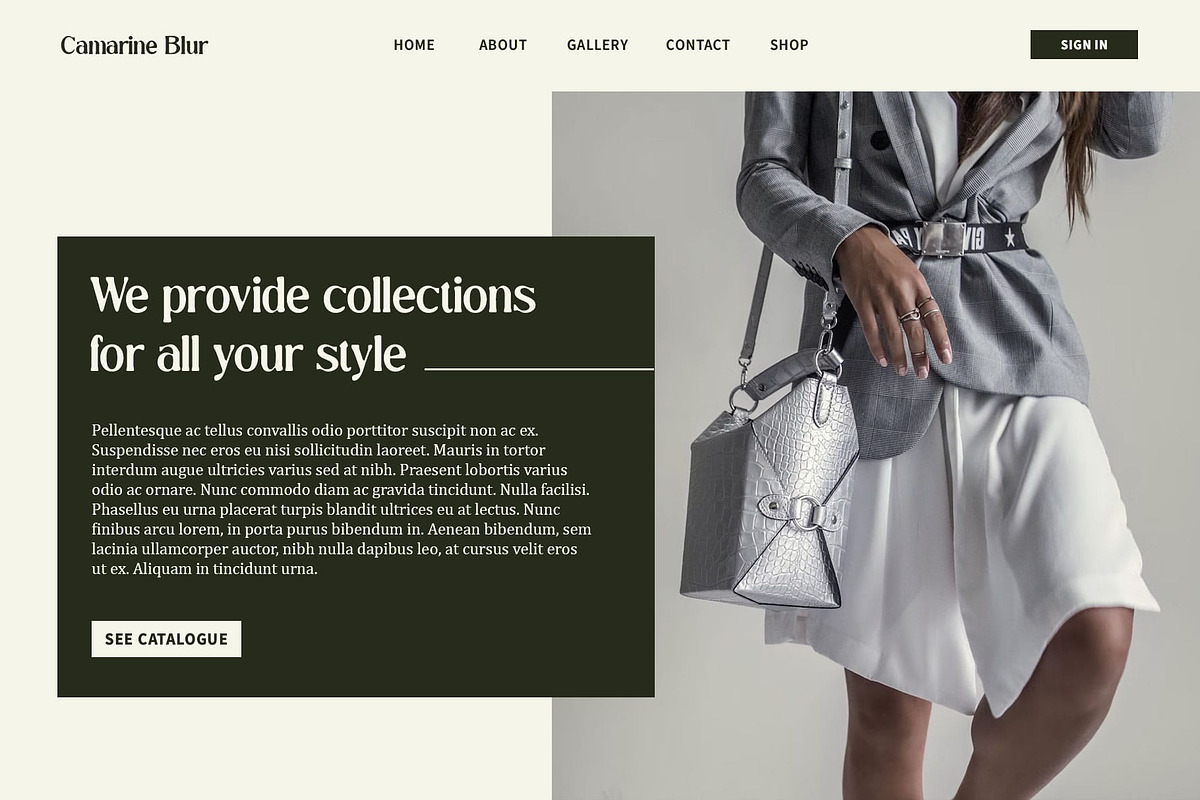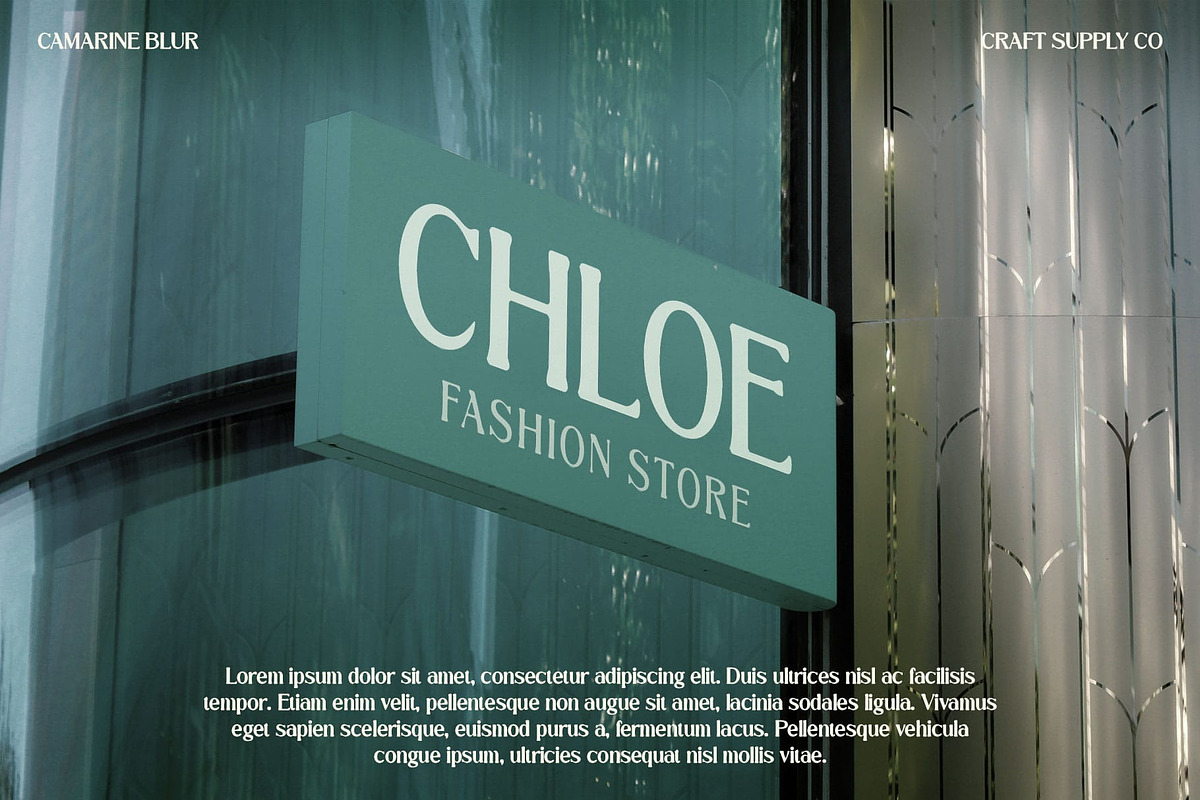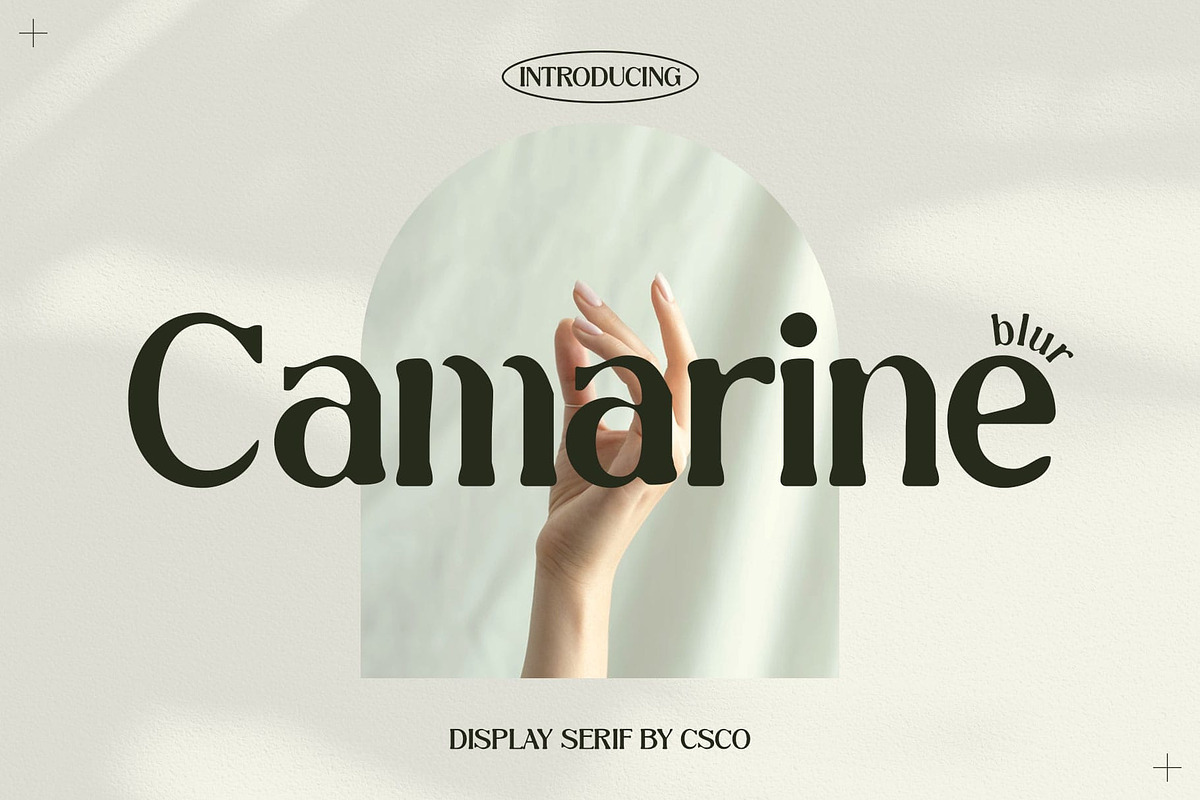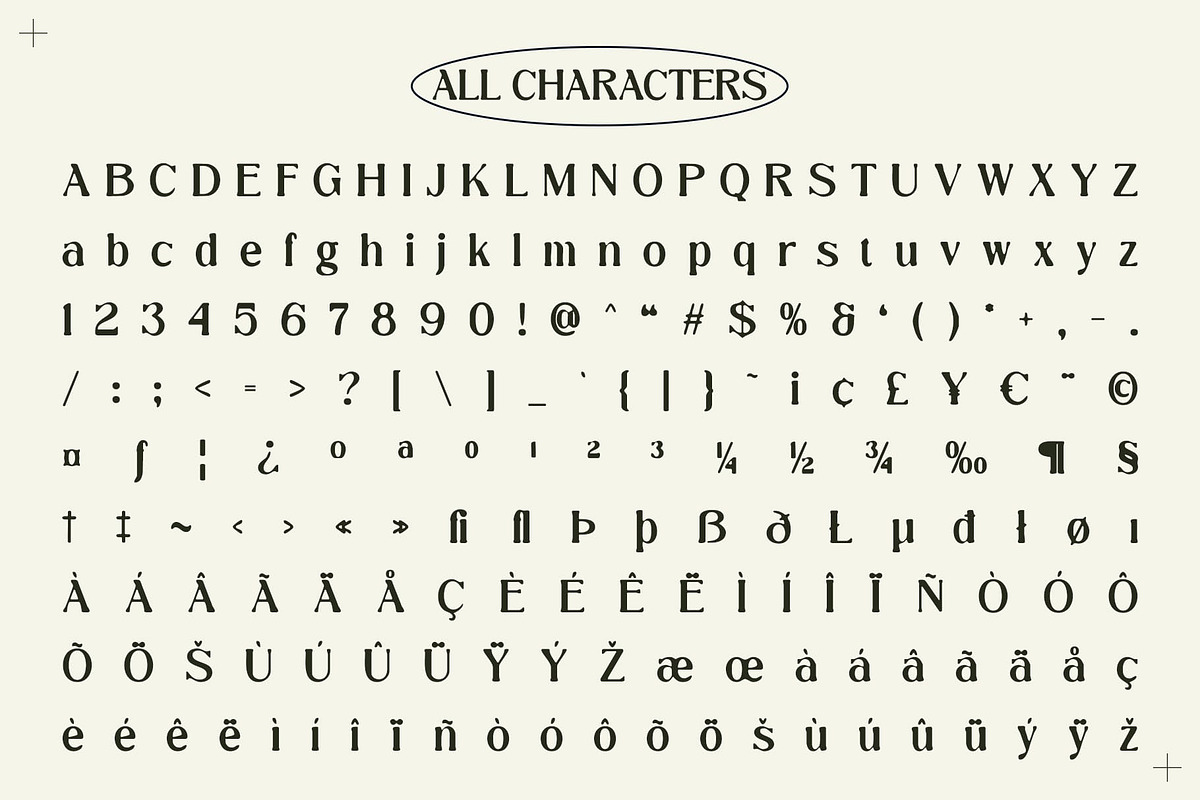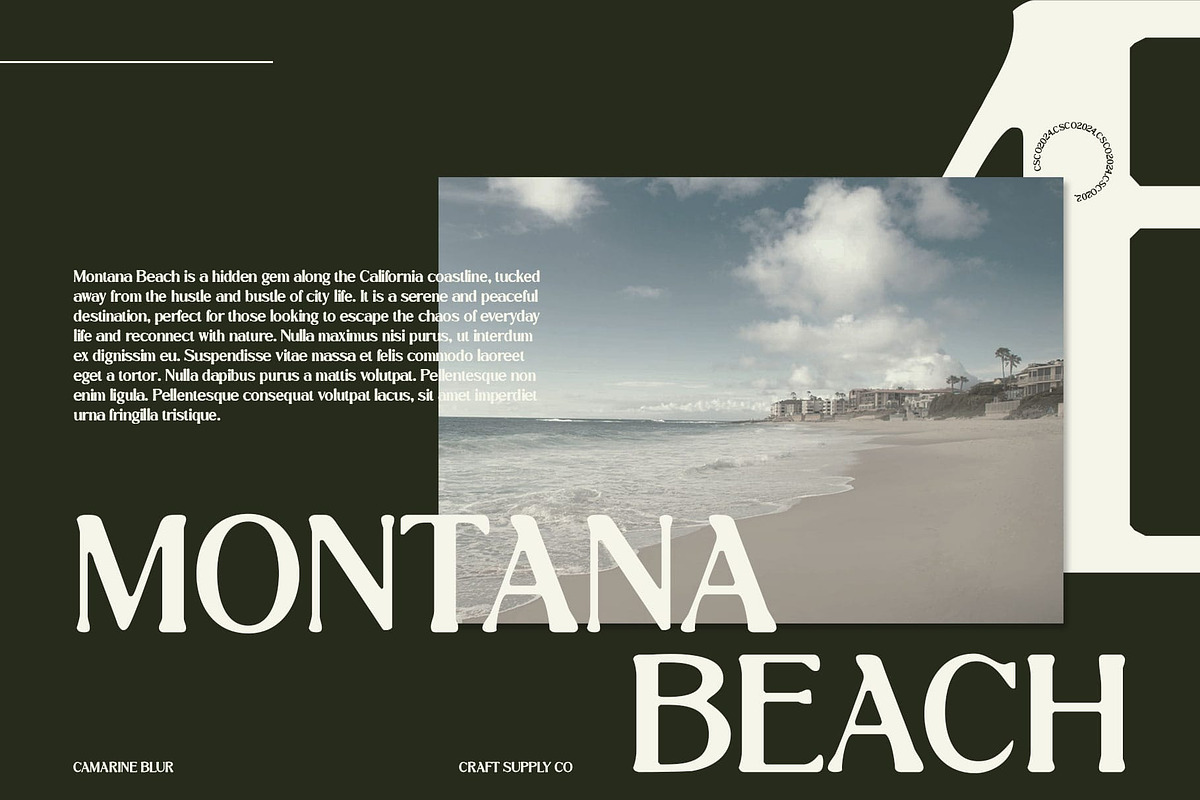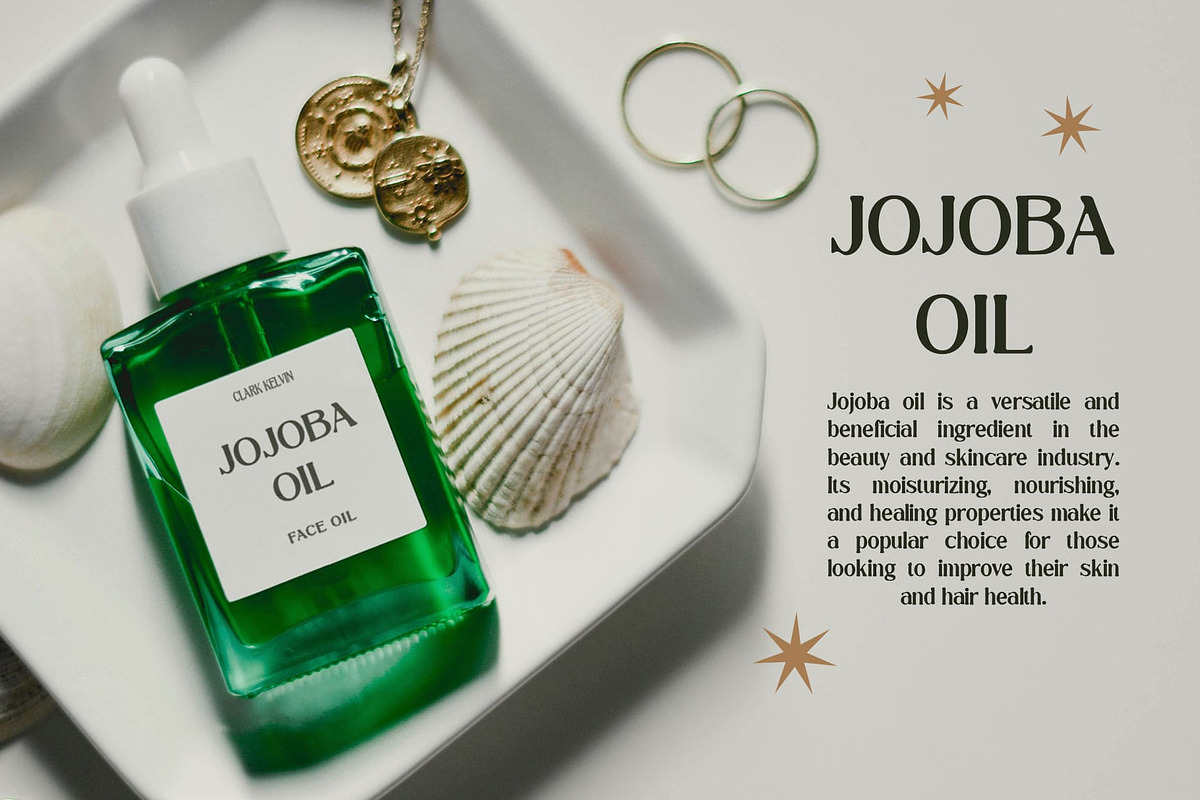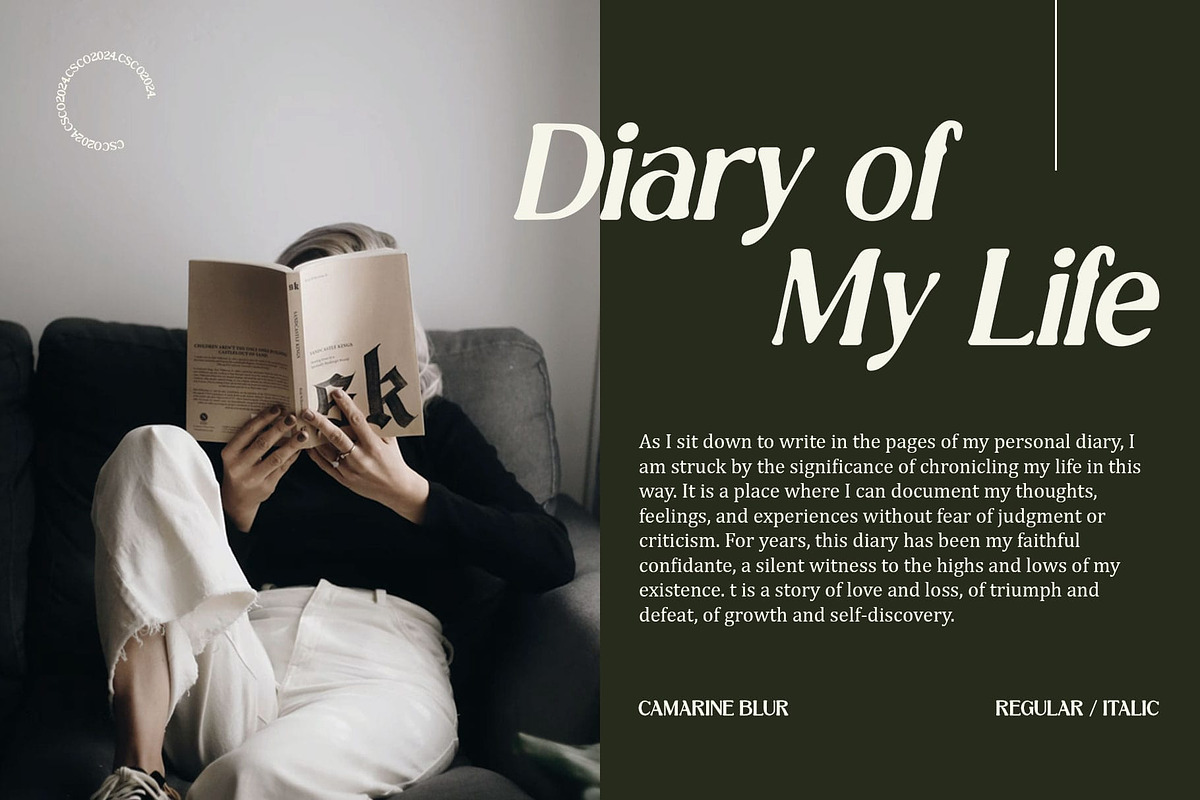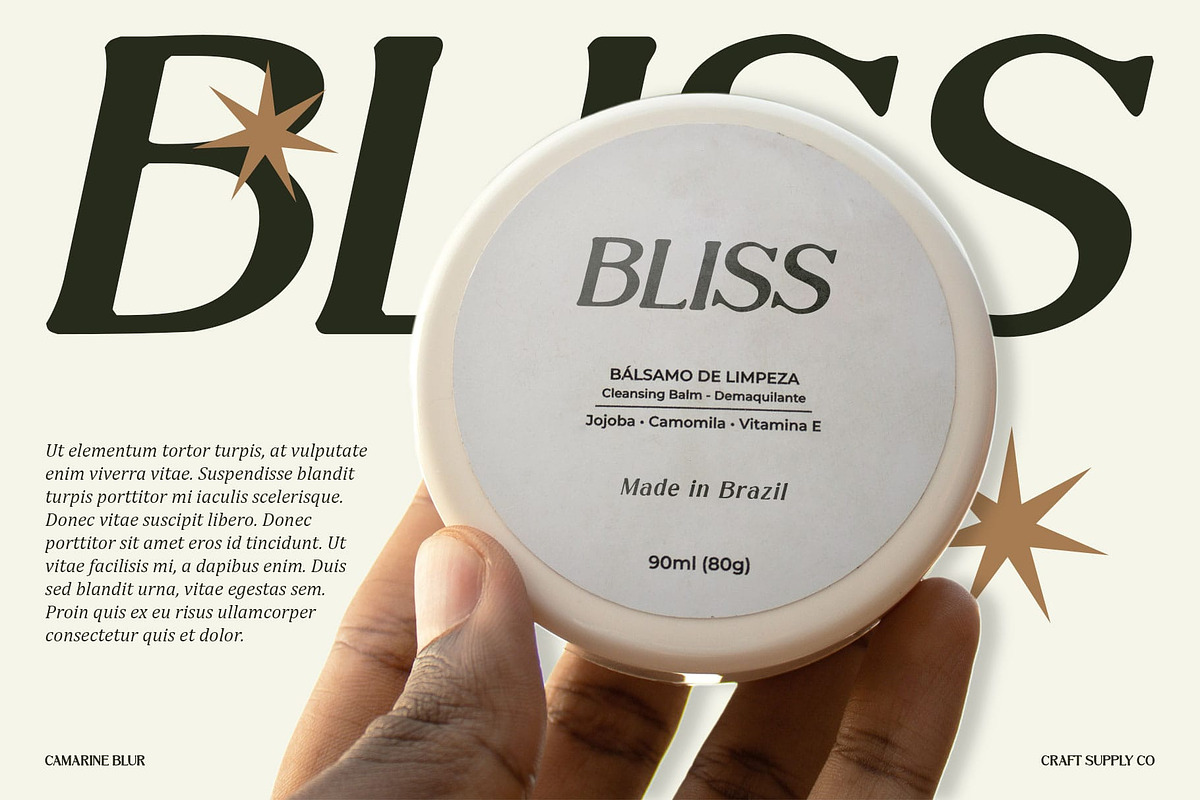
Camarine Blur
Camarine Blur: Elegance with a Contemporary Twist
Introduction Camarine Blur is a modern serif font that seamlessly combines elegant serif elements with a contemporary blur effect. This unique font offers a fresh and appealing look, making it perfect for designs that strive to be both different and elegant.
Elegant Serif Elements with a Modern Twist The blur effect in Camarine Blur adds a modern touch to its classic serif elements, creating a font that is both timeless and contemporary. This blend of styles gives Camarine Blur a unique and sophisticated appearance, making it ideal for projects that require a touch of class and style.
Ideal for Luxurious Designs Camarine Blur is perfect for designs that aim to be luxurious yet modern. Whether you’re working on branding, luxury prints, or editorial designs, this font can help you achieve a look that is both upscale and contemporary. Its blend of elegance and modernity makes it a versatile choice for a variety of design projects.
Enhance Your Designs with Camarine Blur With its unique blend of elegant serif elements and modern blur effects, Camarine Blur can add a touch of sophistication to any design. Whether you’re aiming for a luxurious feel or a contemporary look, this font can help you create designs that are both stylish and timeless.